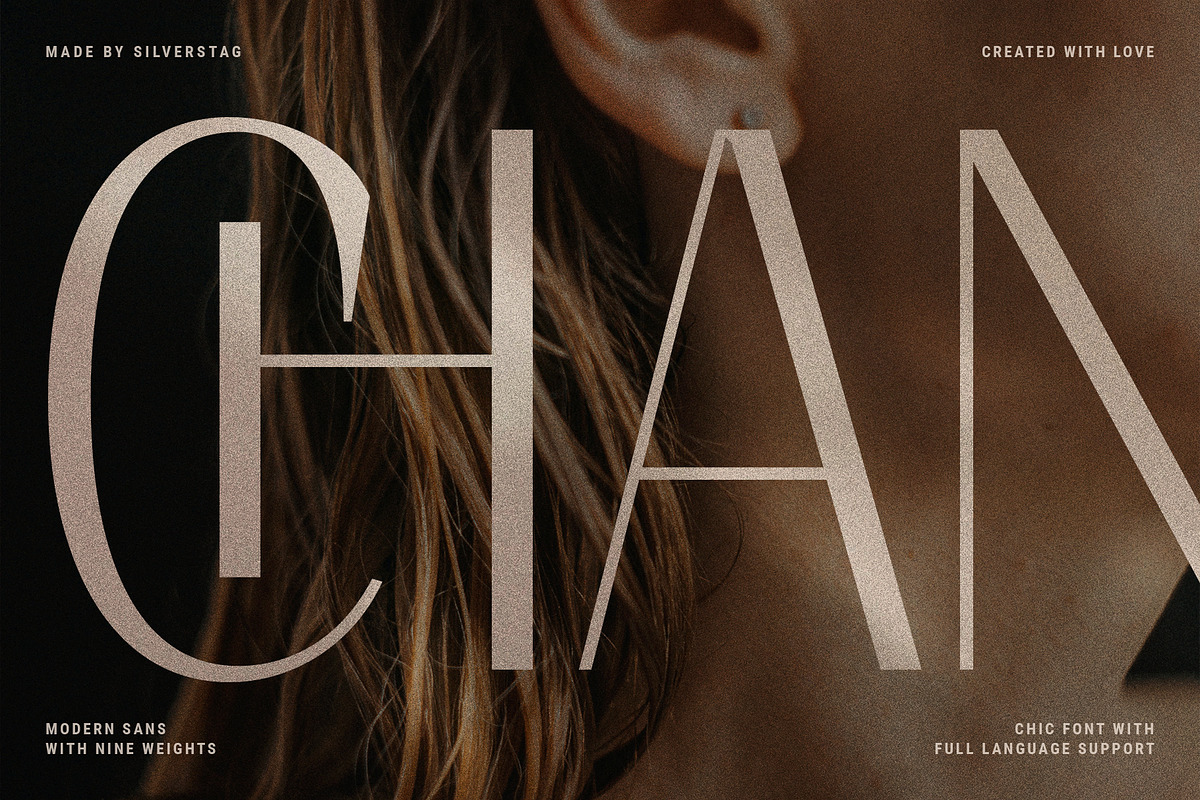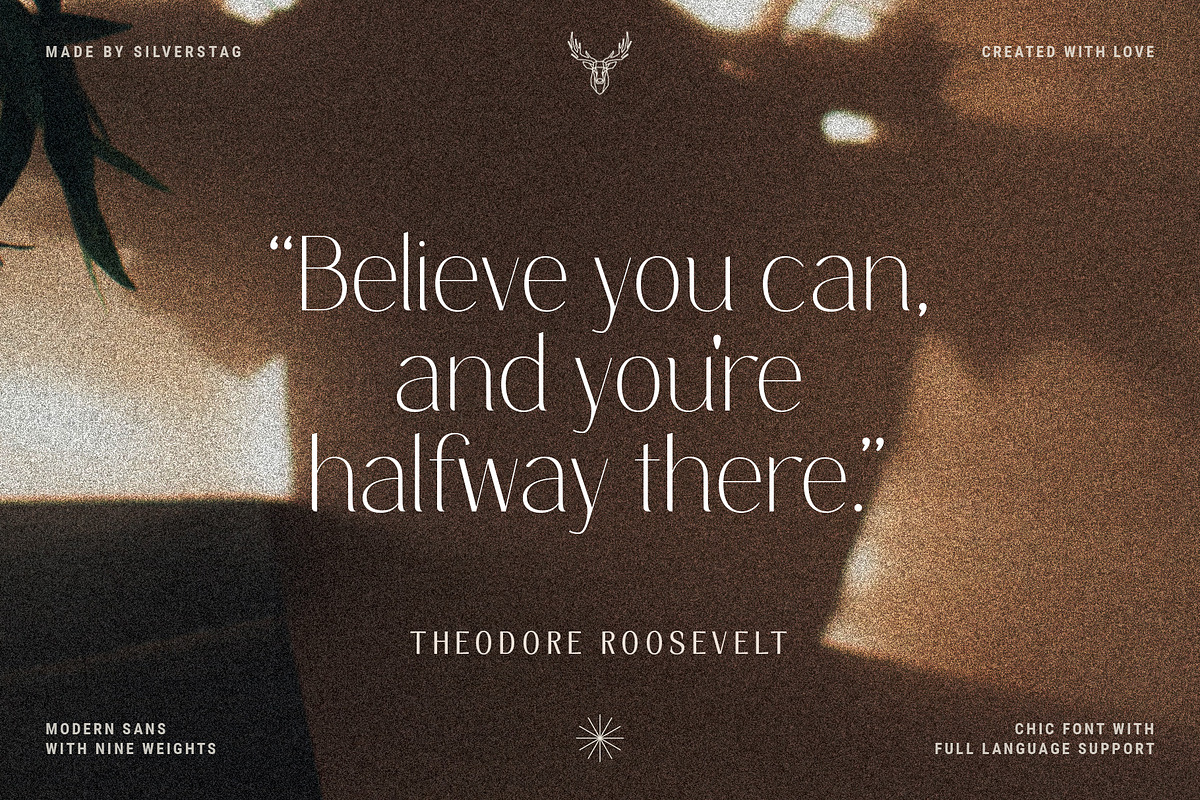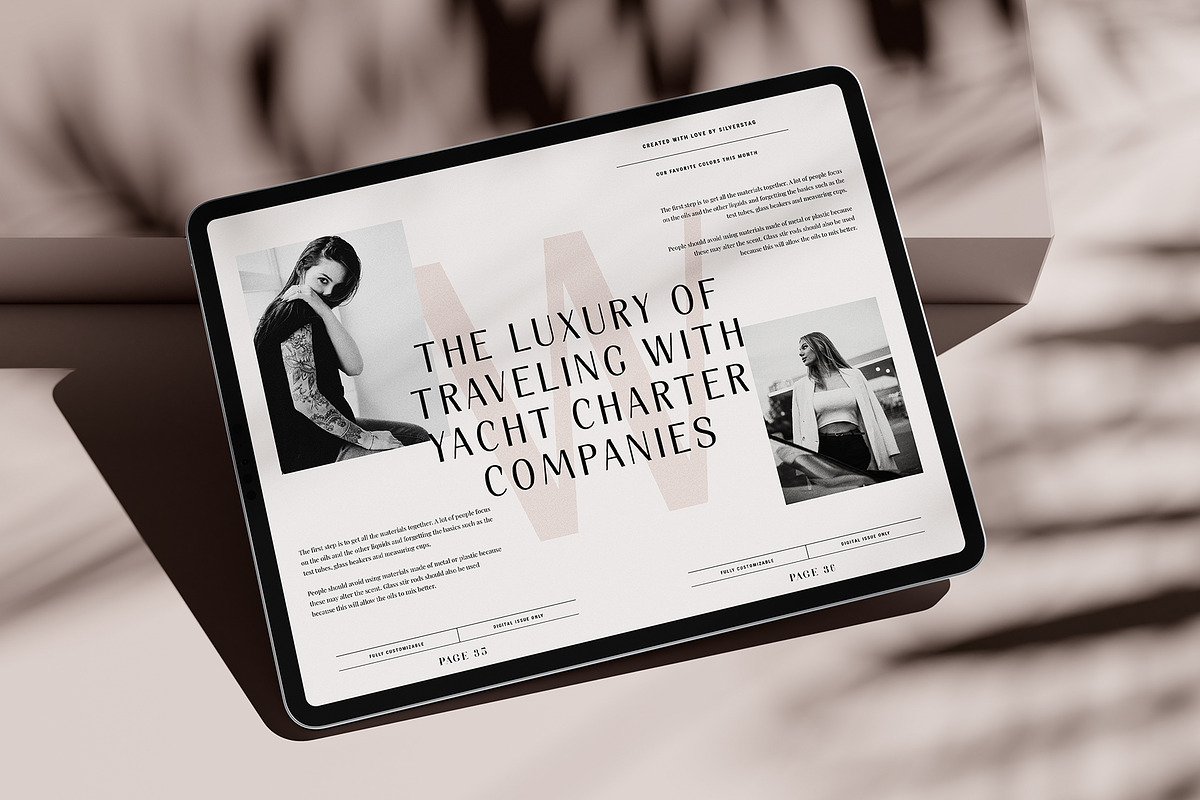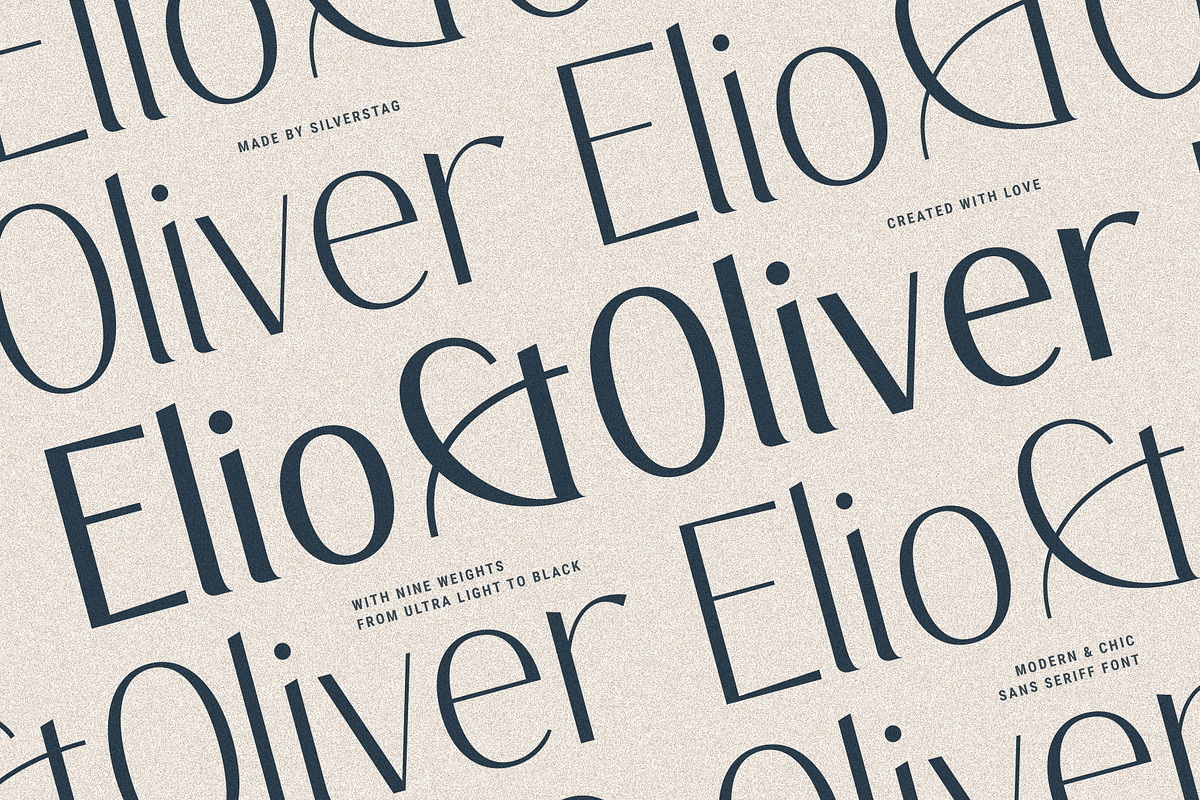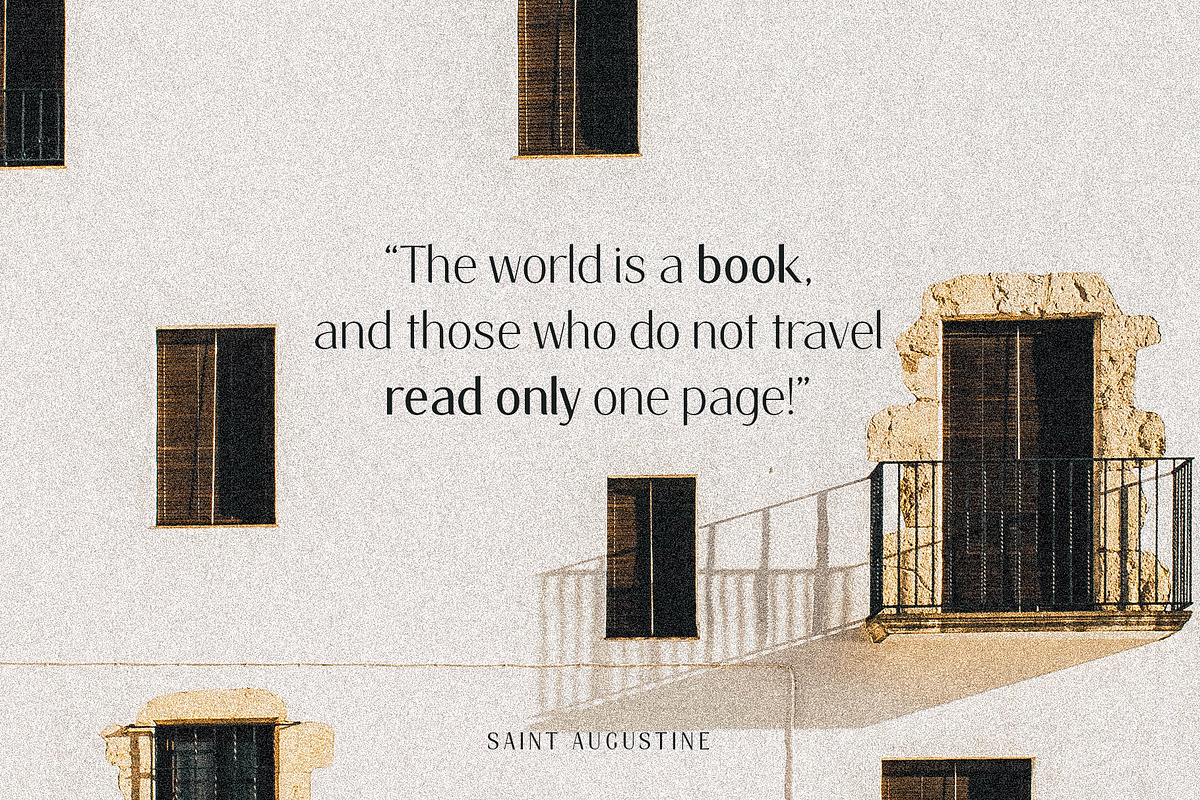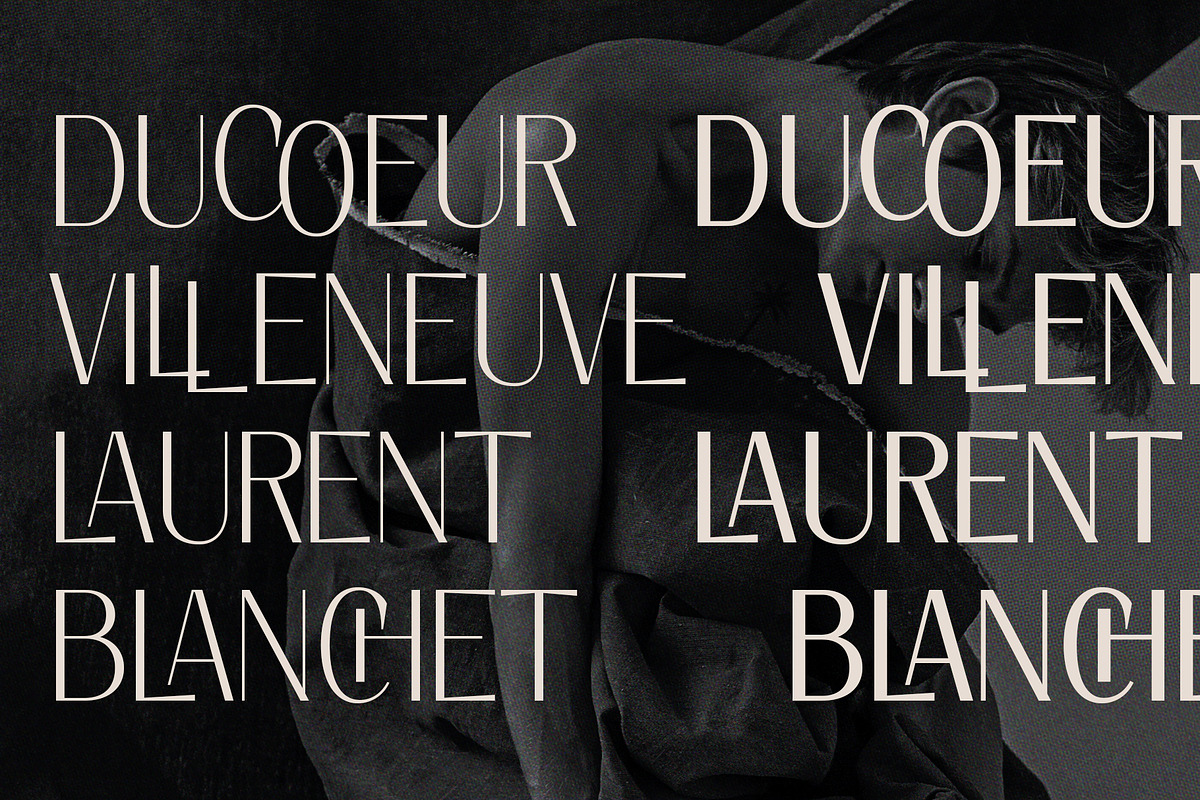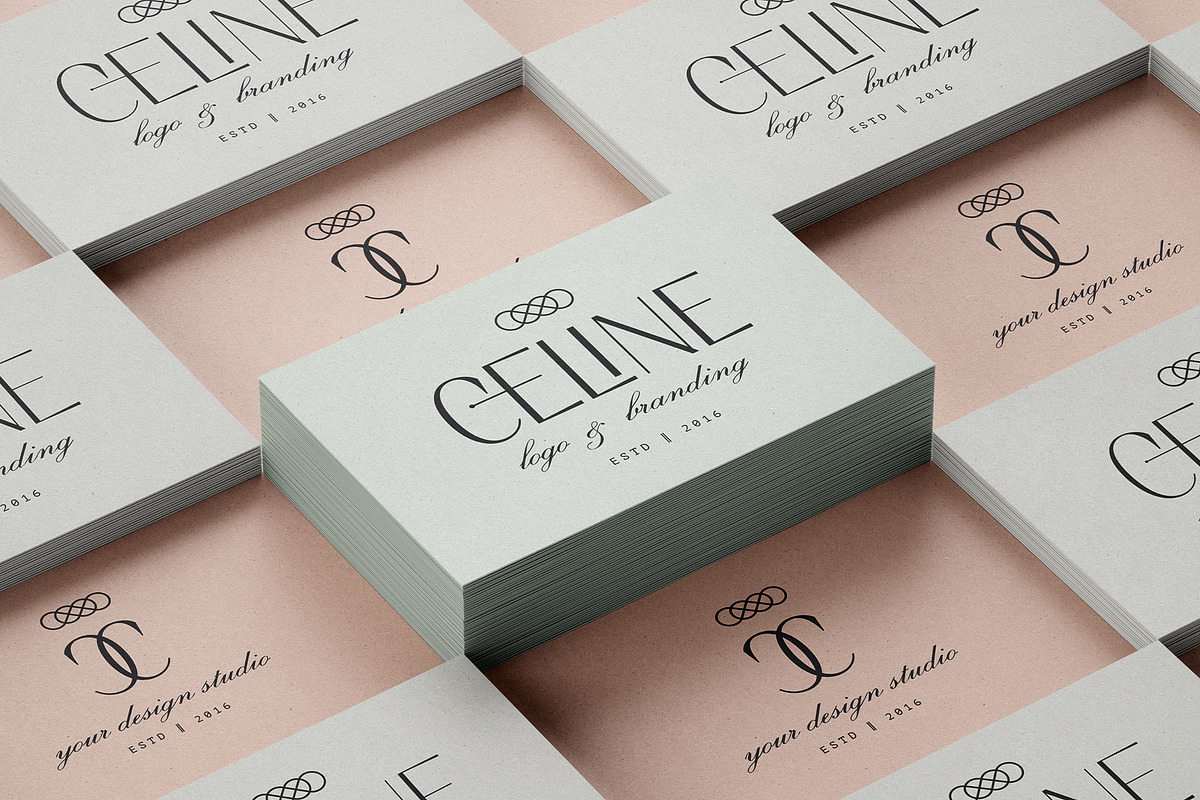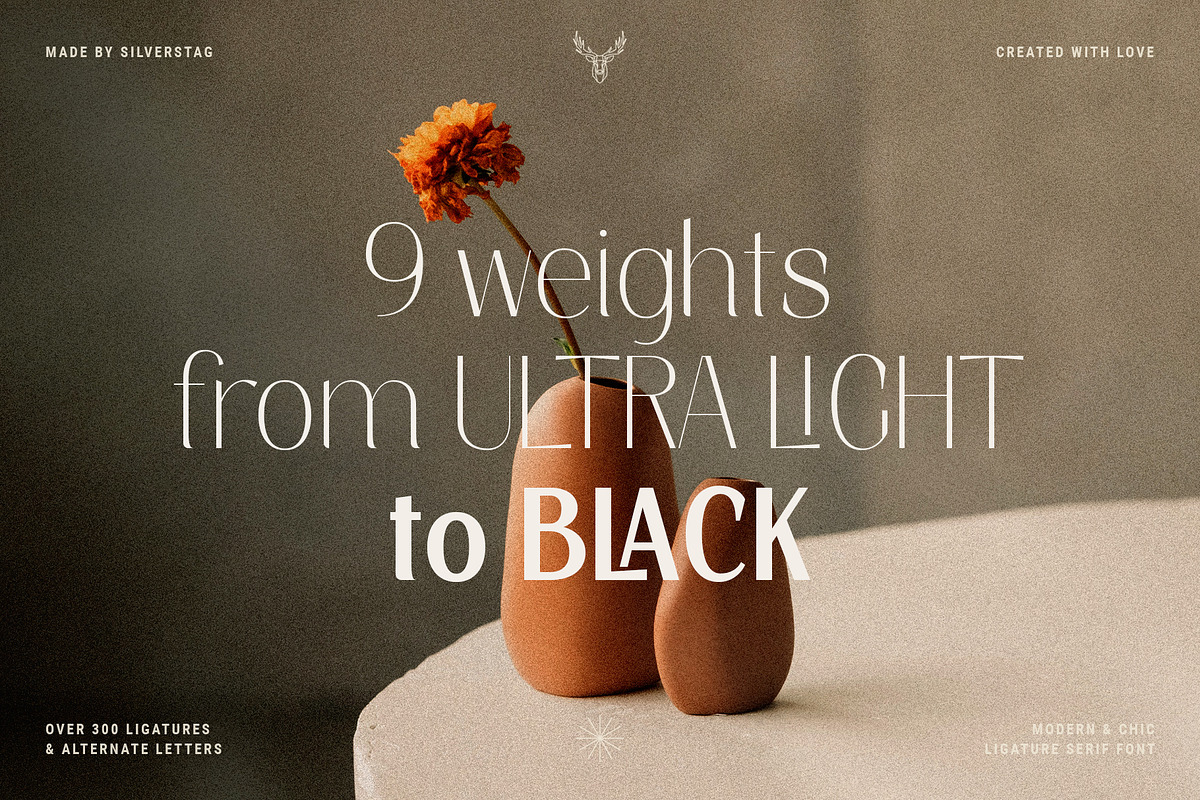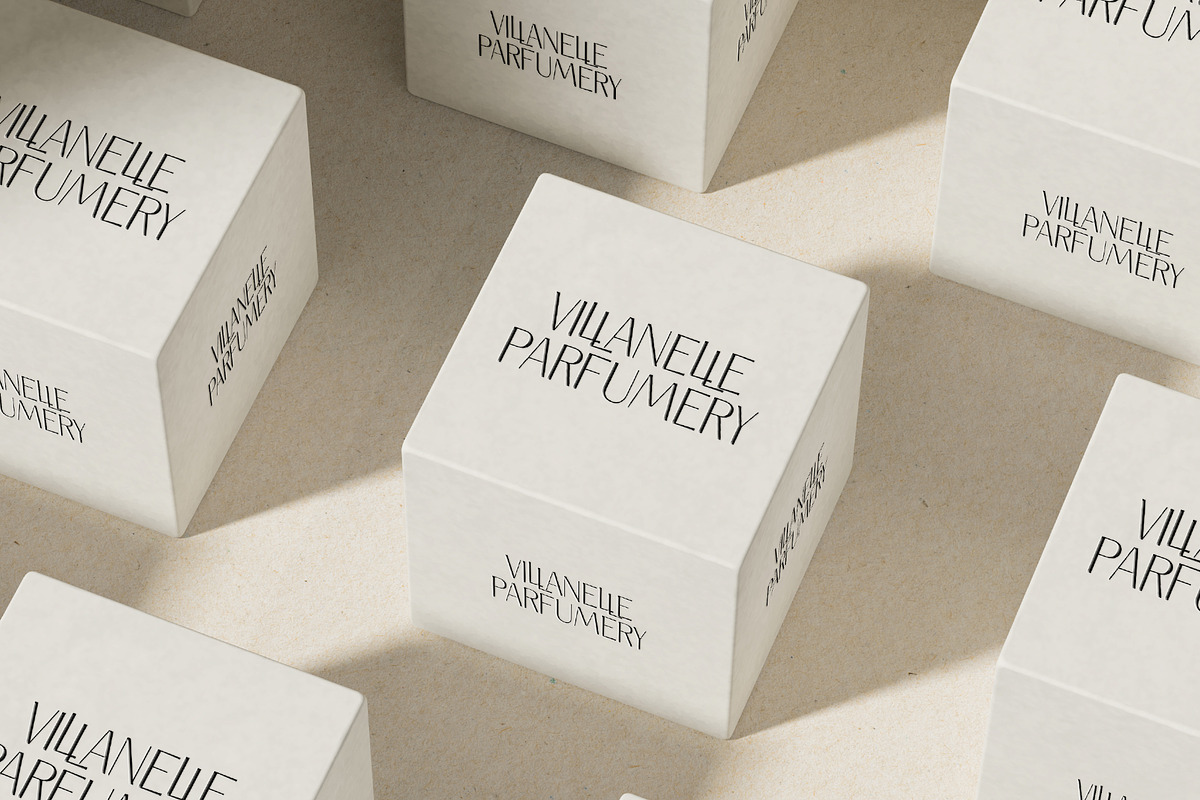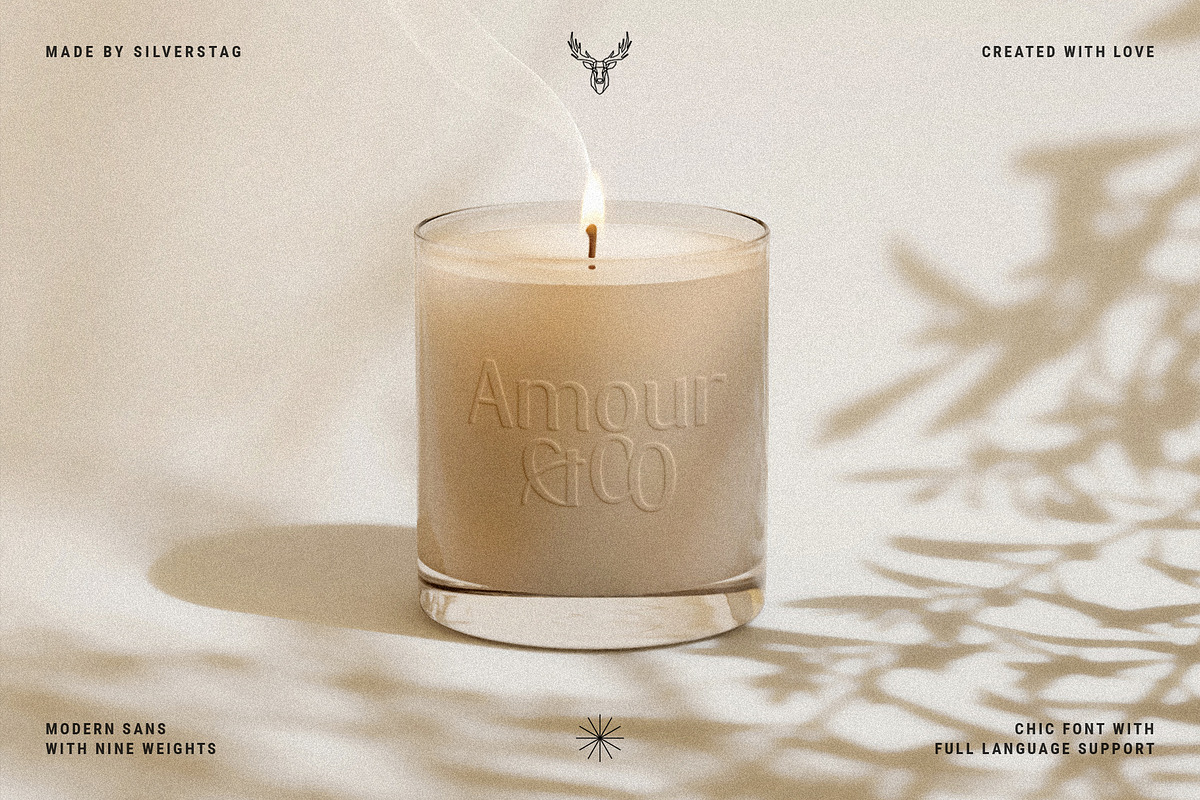
Elio & Oliver - Elegant Sans Serif
I am thrilled to unveil my latest creation, the Elio & Oliver font family. Inspired by the timeless elegance and undeniable allure of Italy, this sans serif typeface captures the essence of sophistication and refinement. Named after the main protagonists of the beloved novel "Call Me by Your Name," Elio & Oliver is a testament to the power of passion, beauty, and the transcendent experiences that shape our lives. Just like their story, this font aims to evoke emotions and create a lasting impression.
With nine meticulously crafted weights ranging from the delicate Ultra Light to the bold intensity of Black, Elio & Oliver offers a spectrum of possibilities. Each weight is thoughtfully designed to ensure versatility and harmonious visual aesthetics across various design projects. Intricate and purposeful, the font pack boasts over 30 ligatures that seamlessly combine letters, elevating the fluidity and legibility of your typography. These ligatures add an extra touch of sophistication to your designs, making them truly stand out.
Recognizing the importance of language diversity, Elio & Oliver is equipped with full language support, enabling you to effortlessly communicate your message to a global audience. From English to Italian, French to Spanish, and beyond, this font embraces the richness and cultural nuances of different languages.
Whether you're working on editorial layouts, branding projects, or digital interfaces, Elio & Oliver will infuse your designs with an air of refined elegance. It is the embodiment of style and grace, effortlessly capturing attention and leaving a lasting impression on viewers. Step into the world of Elio & Oliver, where every letter tells a story and every curve is a testament to the power of design. It's time to elevate your creative projects and evoke the spirit of Italian chicness with this exquisite typeface.
Discover Elio & Oliver and let your designs speak the language of timeless elegance.